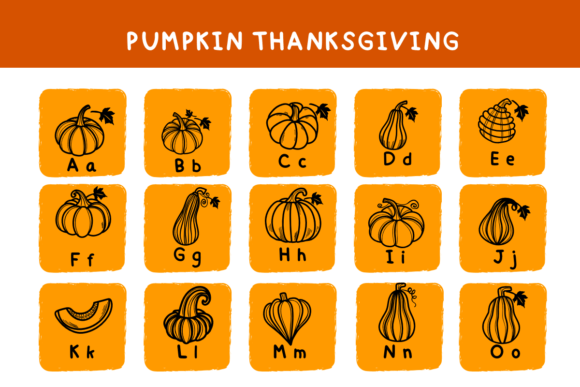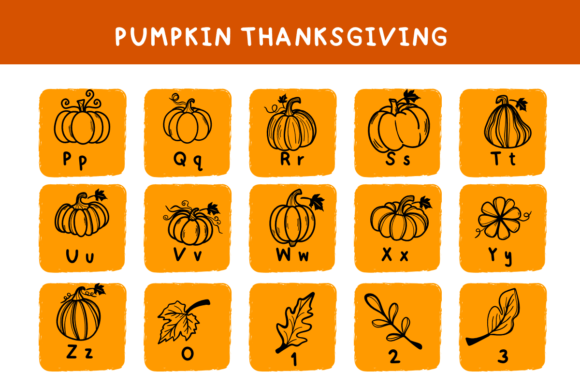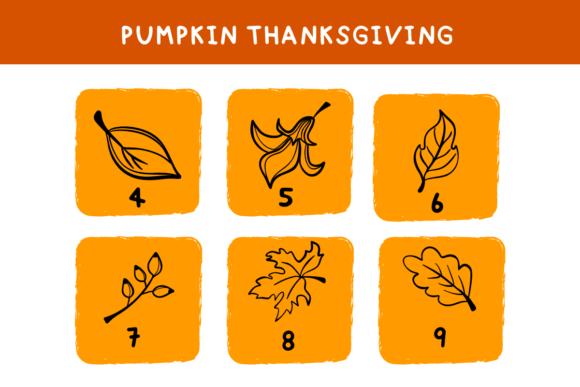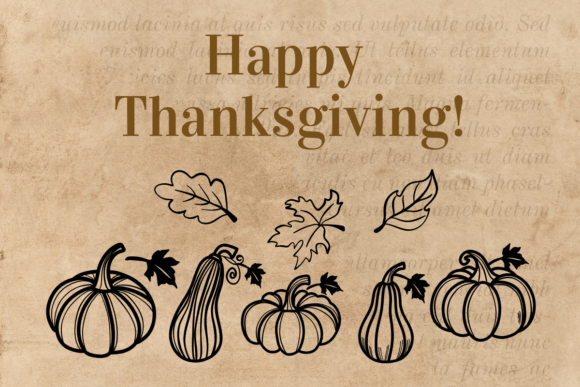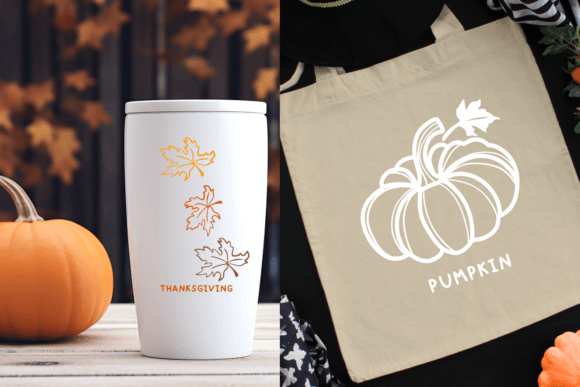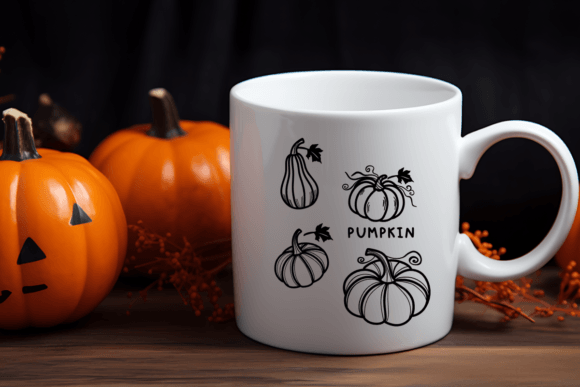
Introduction to Pumpkin Thanksgiving Font
Pumpkin Thanksgiving is a dingbats font with theme with a sketch style.
This font can enhance your creative projects such as wedding invitations, DIY, crafts, decorations, logos, and many other creative ideas .